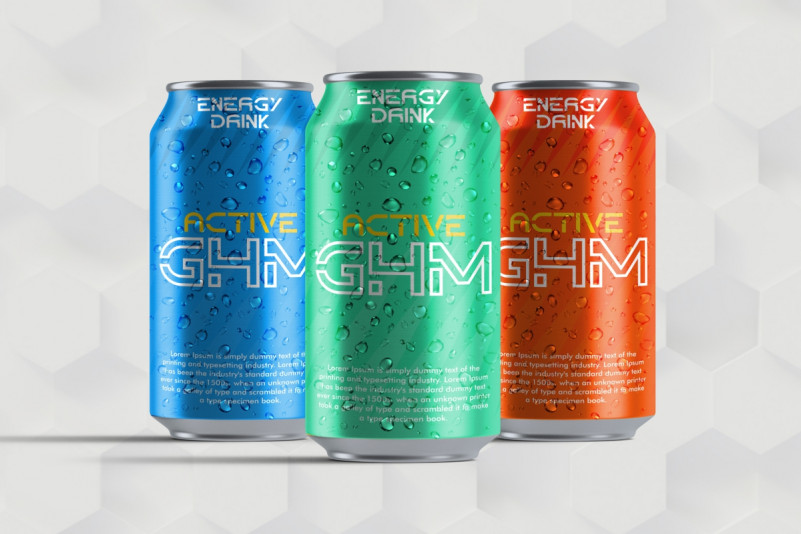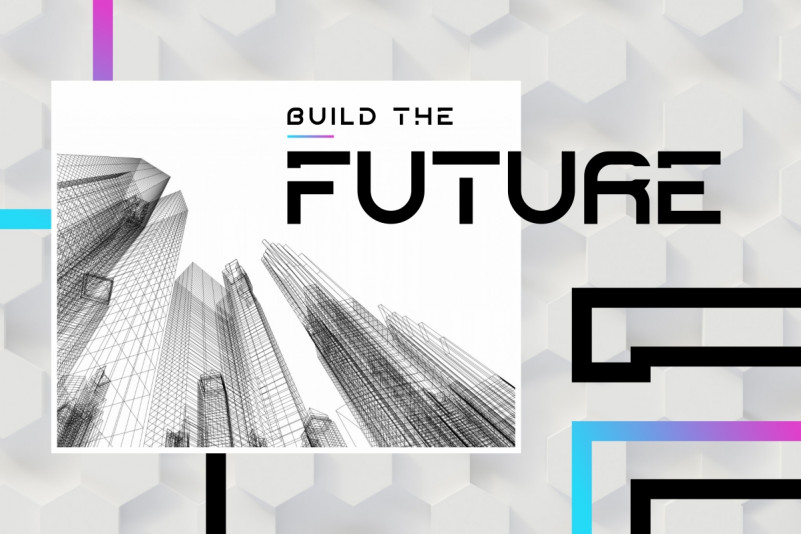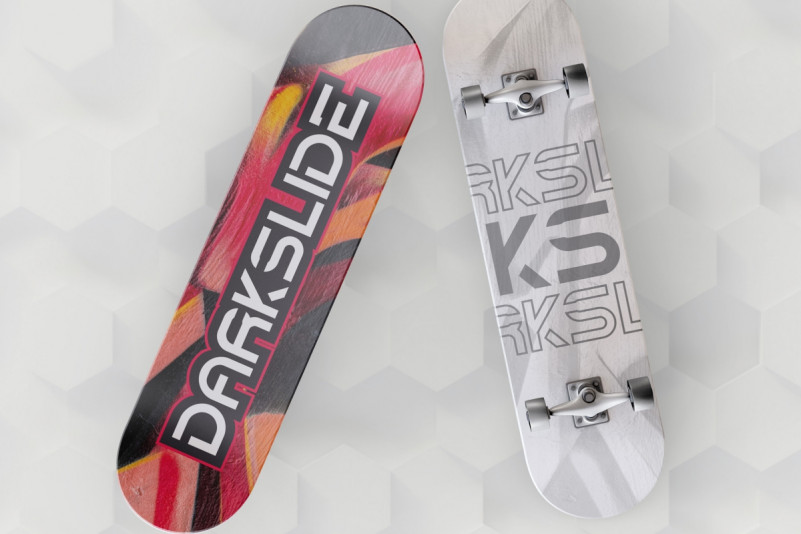
Downstream Font
Downstream Display Font
This is a modern display font with awesome style. The font was inspired from speed, computer glyphs ,techno and hip poster. It has a unique style that will bring the special effect to the design. It will works for games, technology, events, spaceship and any other things. Downstream includes full set of Uppercase and Lowercase Basic Characters, Numerals and Punctuation. You can also combine two or more styles on the text like we did on the cover, so you will great even more unique and special font. The font is perfect for many projects, headlines, logos, poster, tittle, products, etc